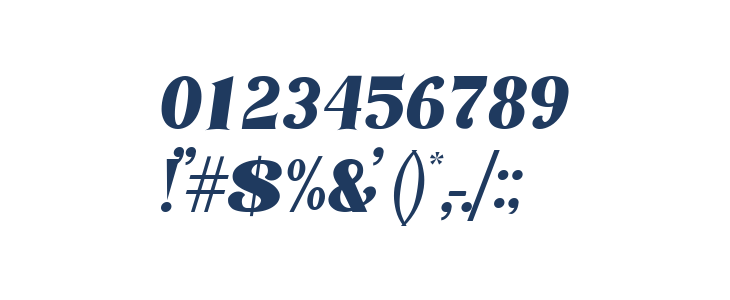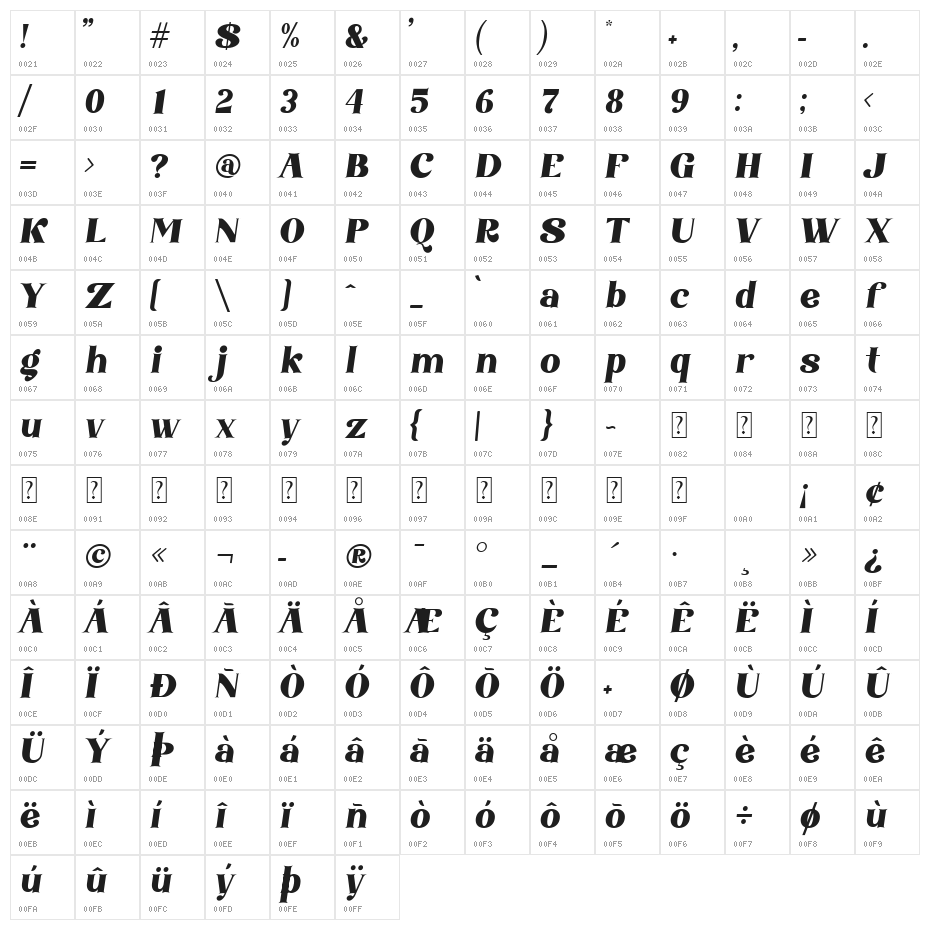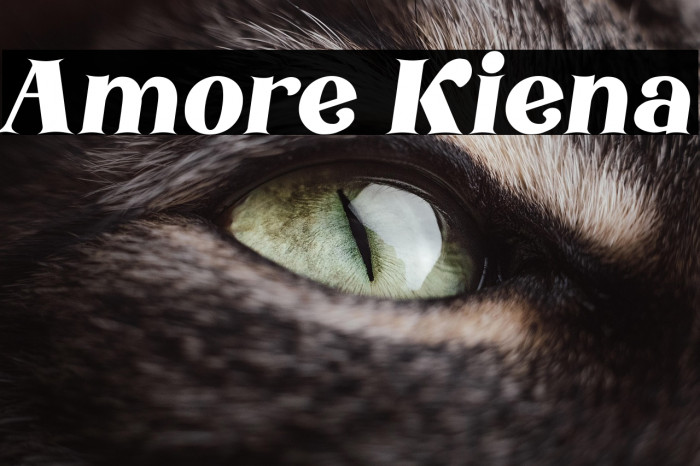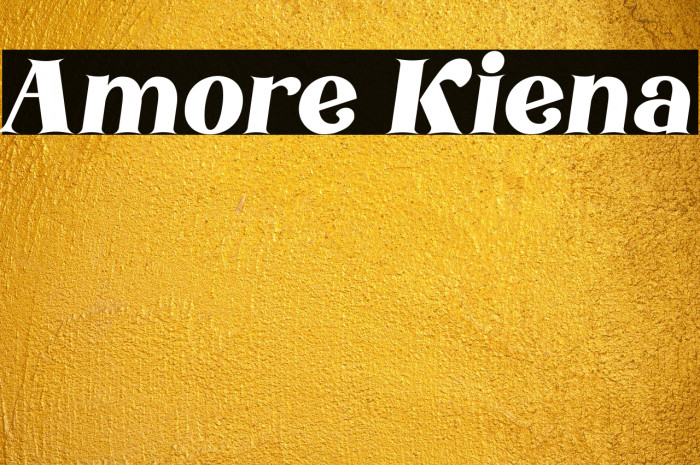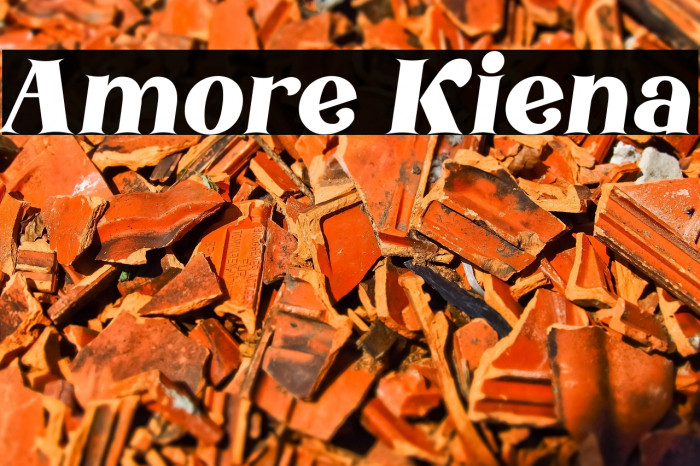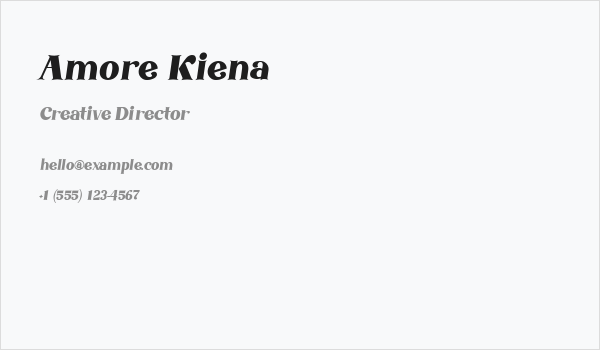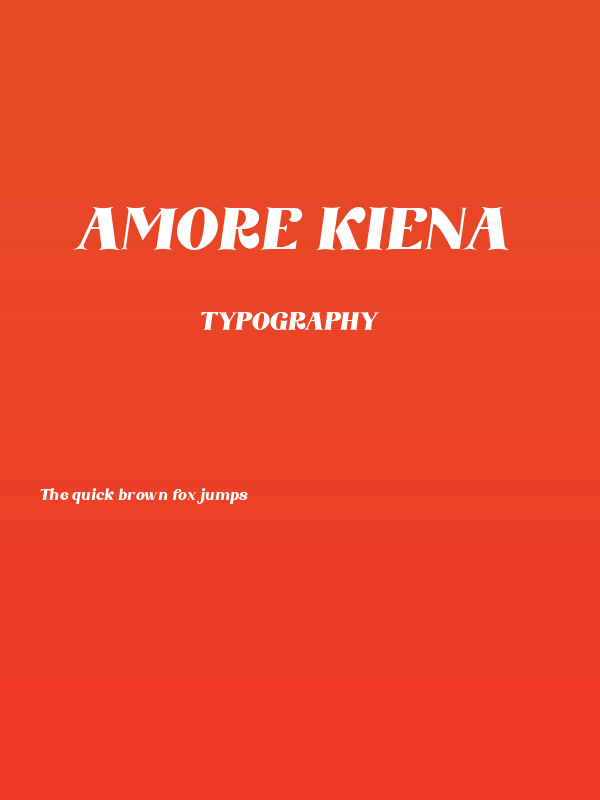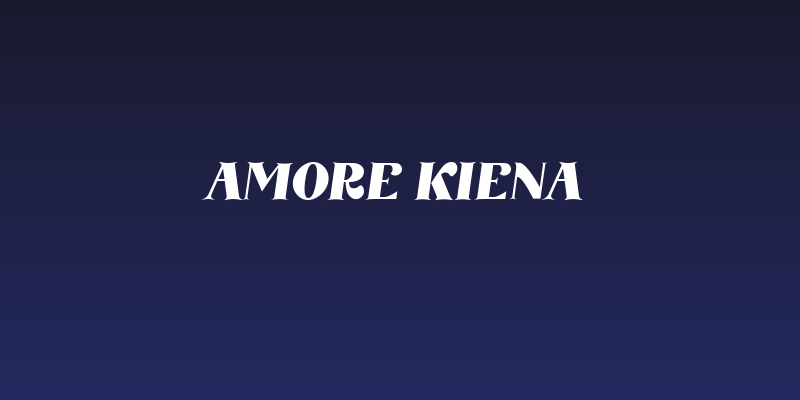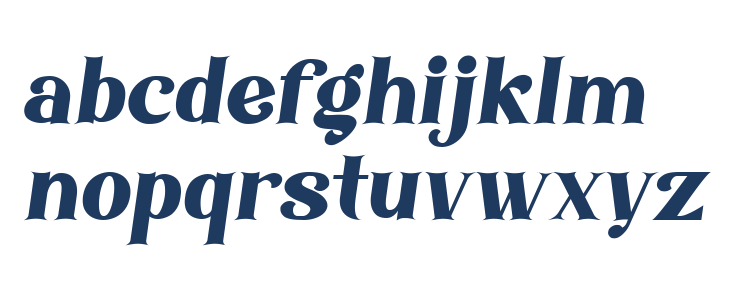
Amore Kiena Font
Amore Kiena Description
This font exhibits a bold and dynamic style with a distinct slant, giving it a sense of movement and energy. The characters are thick and robust, featuring high contrast between thick and thin strokes, which enhances its dramatic appearance. The serifs are pronounced and add a touch of elegance, while the overall design maintains a modern flair. The uppercase letters are particularly striking, with unique curves and angles that make them stand out. The lowercase letters maintain consistency with the uppercase, offering a cohesive look. Numbers and special characters are equally bold, ensuring readability and impact.